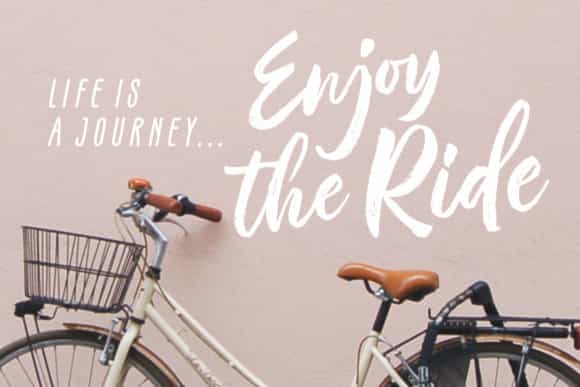
Rough Rough Brush Font – Perfectly conveys the look of an authentic handcrafted Brush, and will inspire any design project with its extremely romantic feel. Rough Rough Font Duo was designed and released by Jaime Marqvorsen, it is a fun, bold handwriting typeface filled with contemporary feeling.